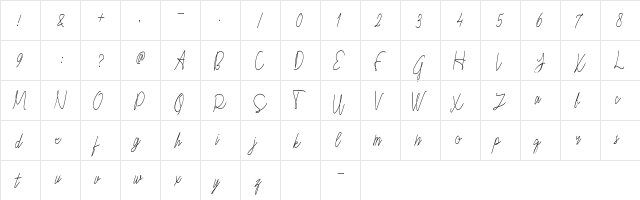
Cepttoni Regular
Design Context for Cepttoni Typeface
Cepttoni is a composed and adaptable typeface that performs quietly and consistently across a wide range of design contexts.